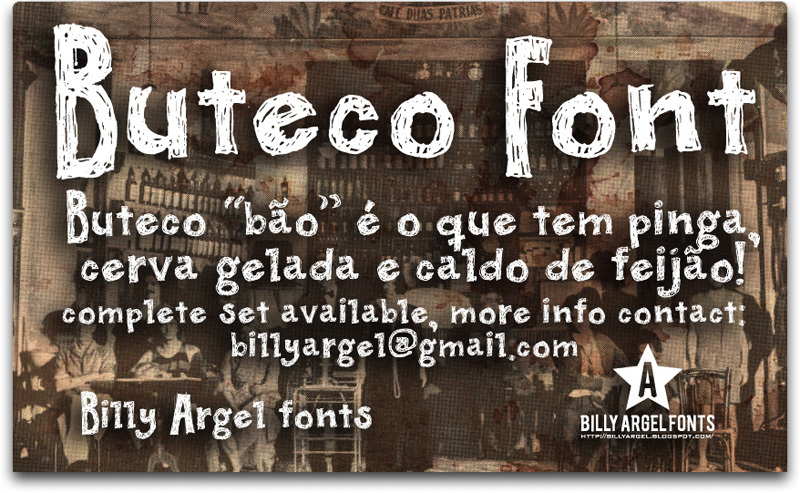
Buteco by Billy Argel is a free eroded display font with tall, forceful lettering and a roughly cut silhouette. Uneven edges keep every stroke restless. Dense scratch marks run through the broad forms, giving the surface a dry, scuffed texture rather than a soft weathered fade.
A concert poster is its most convincing setting, since the agitated marks suit punk, garage rock, and other raw music graphics. The same distressed weight can shape bar branding, T-shirt prints, and horror-themed event material. On posters especially, the letters function almost like hand-inked artwork rather than ordinary type.